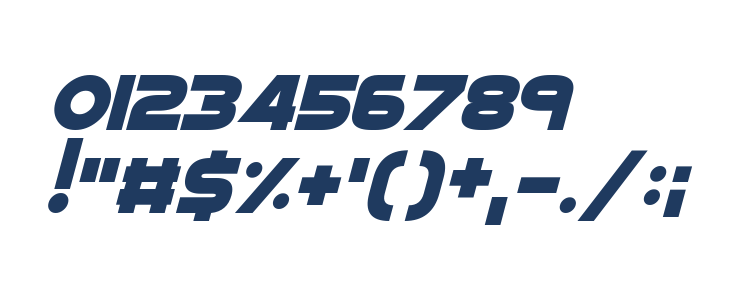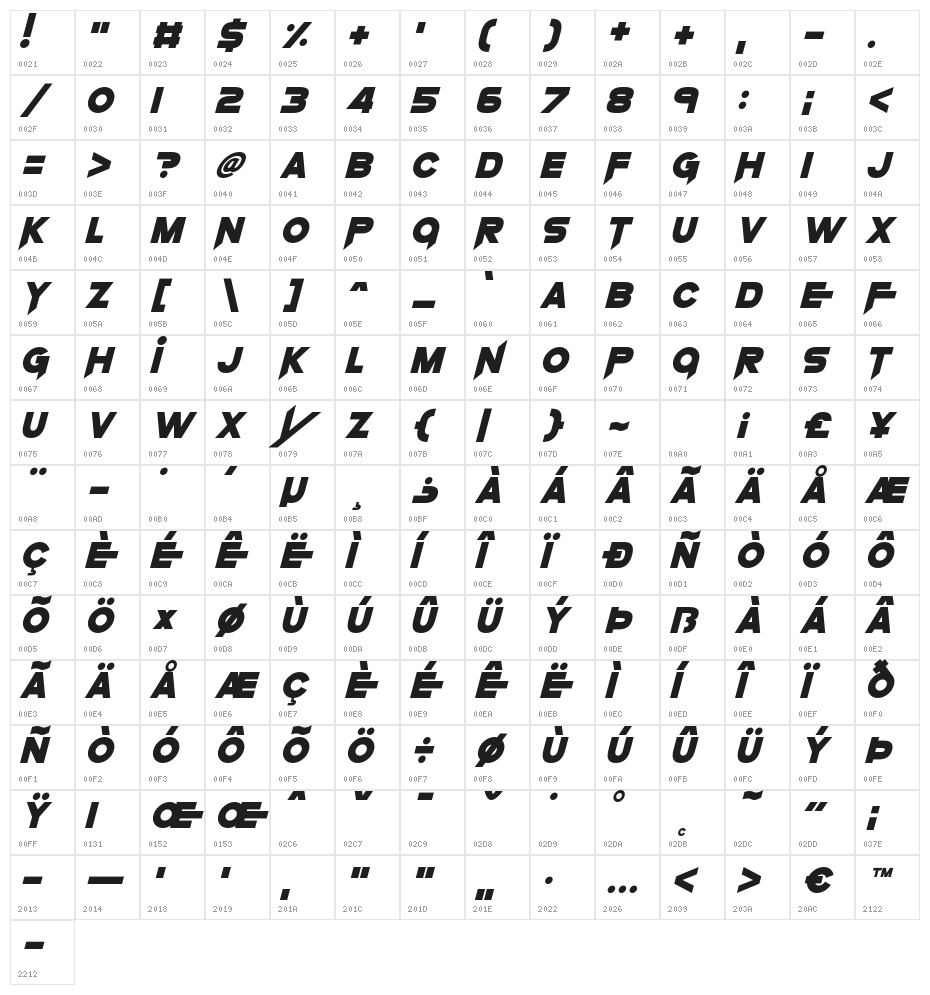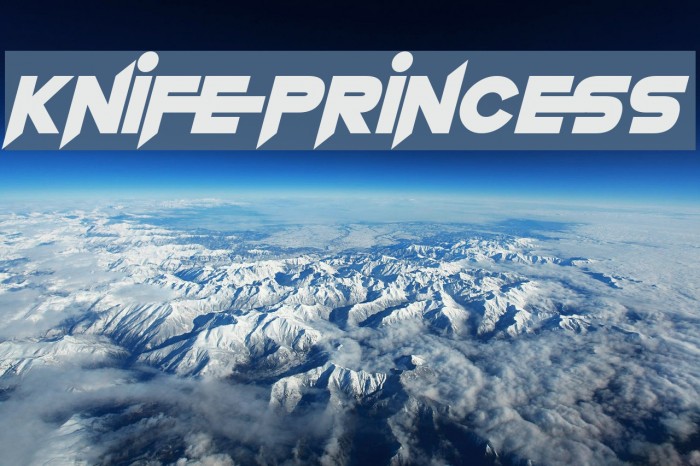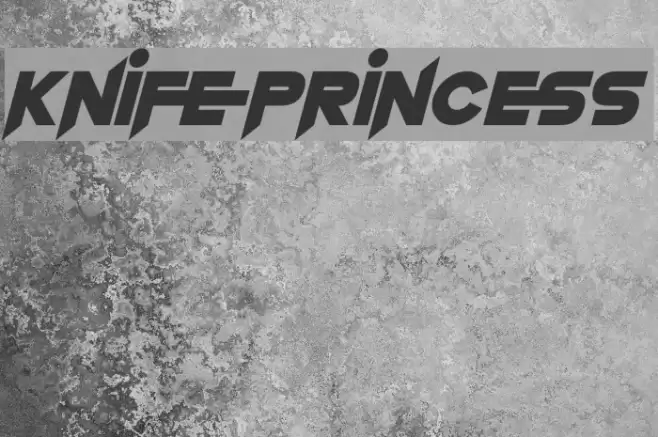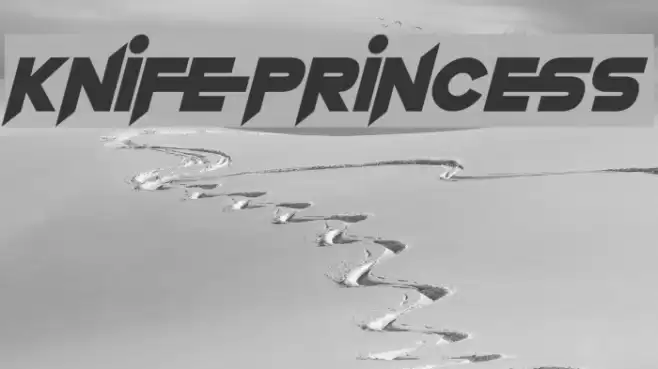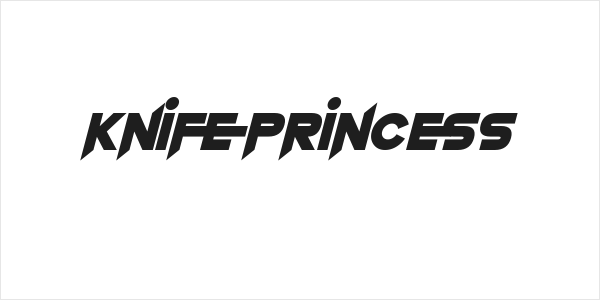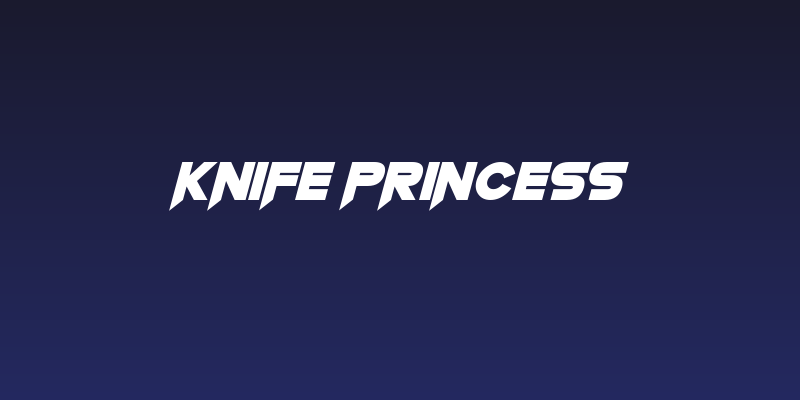
Knife Princess Font
Knife Princess Description
This font features a bold and dynamic style with sharp, angular edges that give it a futuristic and aggressive appearance. The characters are designed with a forward-leaning slant, enhancing the sense of motion and speed. Each letter is distinct, with unique cuts and angles that create a striking visual impact. The numbers and special characters follow the same design principles, maintaining consistency across the font. This font is ideal for projects that require a strong, modern aesthetic with a touch of edginess.
| Proposed Projects | Perfect for video game titles, movie posters, sports branding, and any project needing a modern, edgy look. |